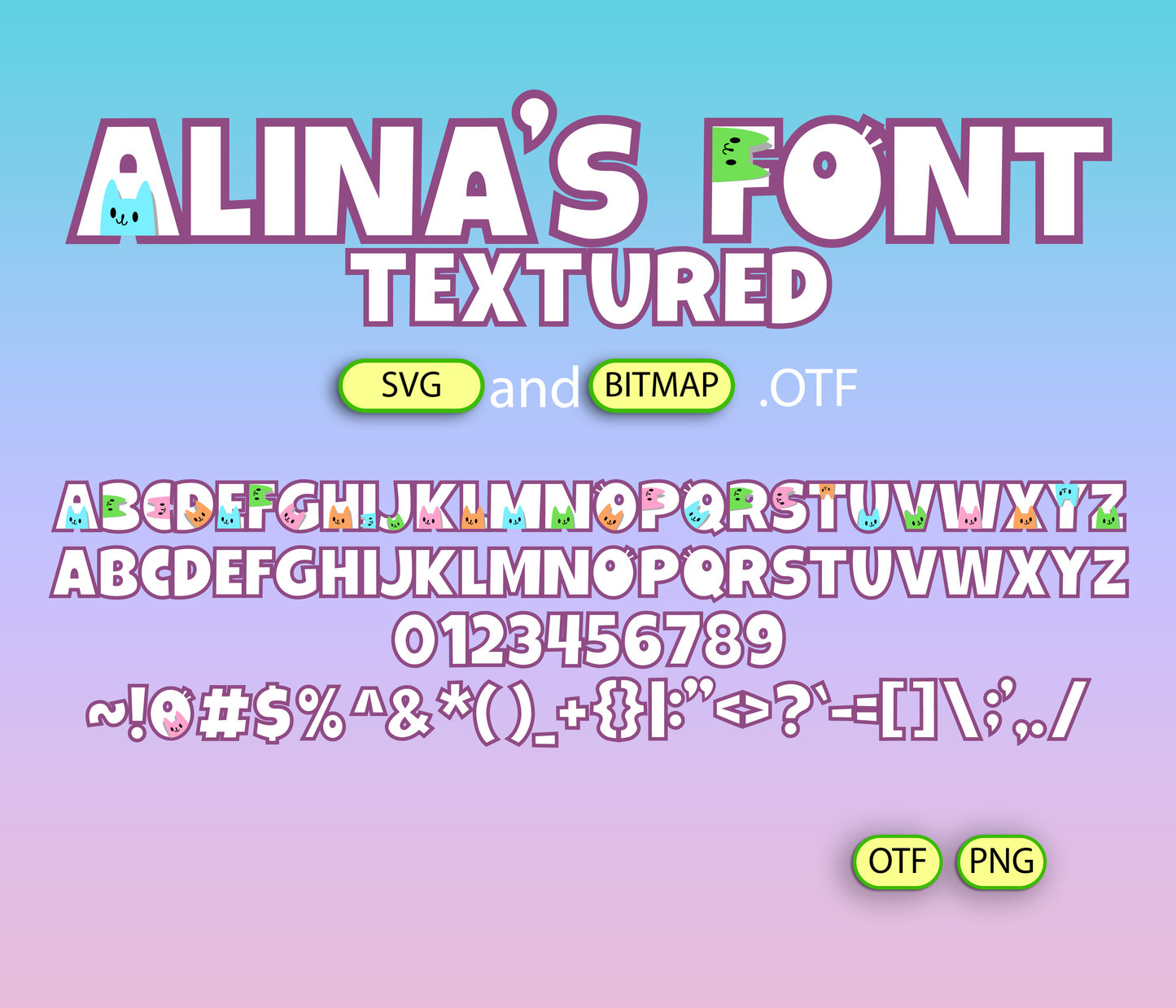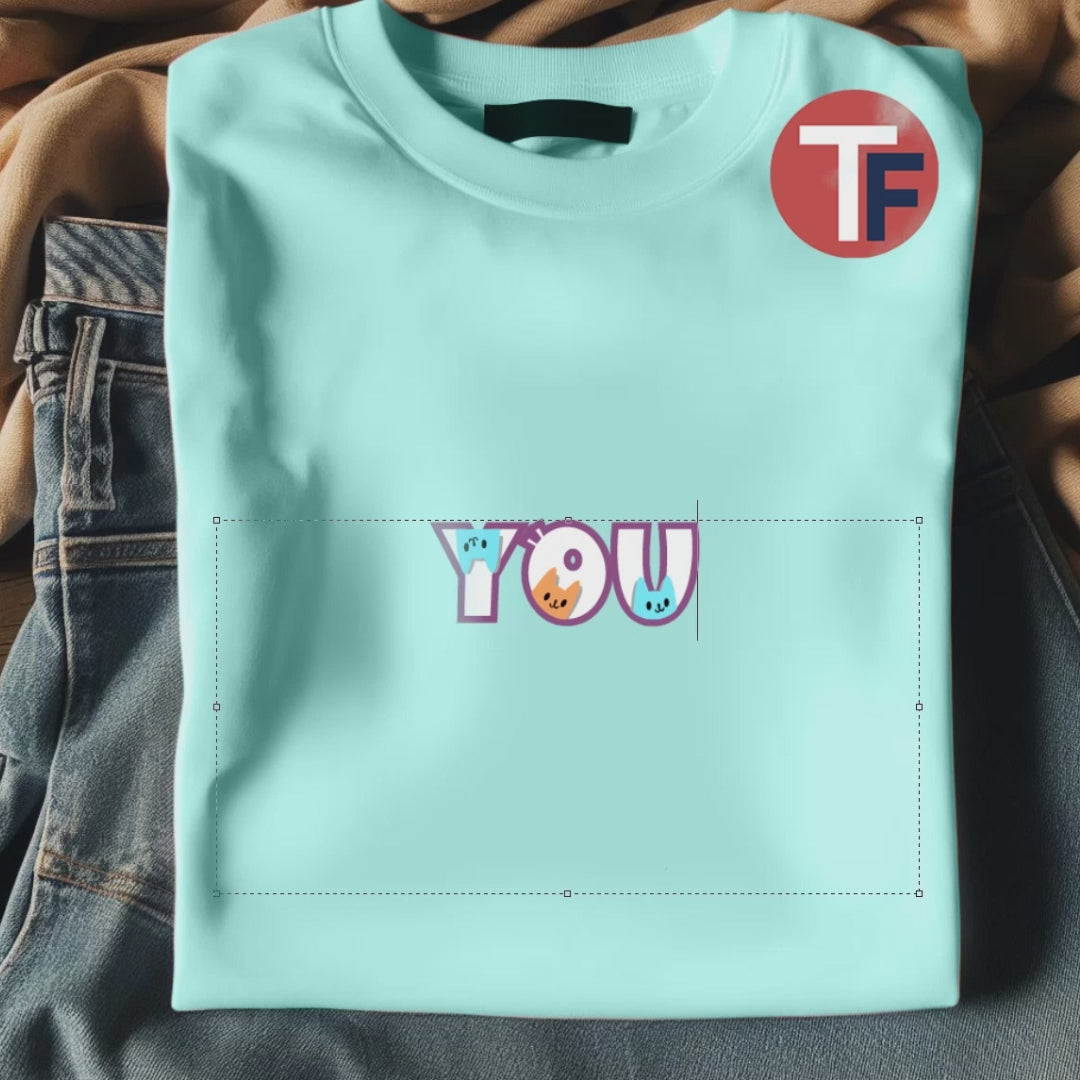
Enchanted Dollhouse Font Textured
Bring the Magic of Playtime to Your Designs with the Enchanted Dollhouse-Inspired Font
Step into the whimsical world of Enchanted Dollhouse with our specially designed font, capturing the playful and enchanting essence of a beloved children's series. Perfect for fans, event planners, and designers looking to infuse their projects with charm and creativity, this font brings the delightful and imaginative spirit of Enchanted Dollhouse to your designs. Whether you're creating event invitations, designing themed merchandise, or crafting digital content, our Enchanted Dollhouse font ensures your projects resonate with magic and fun.
Our Enchanted Dollhouse-inspired font features playful, rounded characters and whimsical details that reflect the cheerful and creative style of the show. This versatile font is ideal for a variety of applications:
1. Event Invitations: Perfect for creating engaging invites for children’s parties, playdates, or themed events.
2. Merchandise Design: Ideal for designing t-shirts, posters, and accessories that capture the essence of Enchanted Dollhouse.
3. Digital Media: Enhance websites, blogs, and social media content with vibrant headers and graphics.
4. Educational Materials: Use in presentations, worksheets, and educational content focused on creativity, storytelling, or early childhood education.
5. Personal Projects: Add a touch of playful magic to scrapbooking, DIY crafts, or home decor inspired by Enchanted Dollhouse.
To ensure maximum usability and flexibility, our Gabby's Dollhouse-inspired font includes both textured and non-textured variants. The non-textured version is particularly beneficial, ensuring compatibility with all types of software, including Canva. This feature allows users of all skill levels to seamlessly incorporate the font into their designs, enhancing accessibility and ease of use across various digital and print platforms.